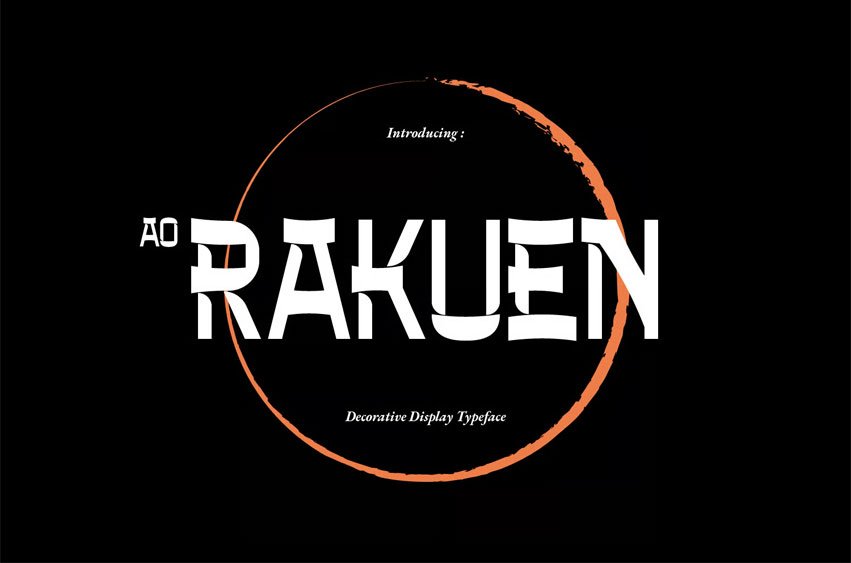
Rakuen Font is an experimental Japanese typography style that has been carefully crafted to create a unique look. Featured multilingual alphabet letters and alternate glyphs.
Rakuen font is a typeface made mainly for headlines, titles, branding, logotypes, packaging, jersey names, editorial design, and is well-suited for modern or vintage design.